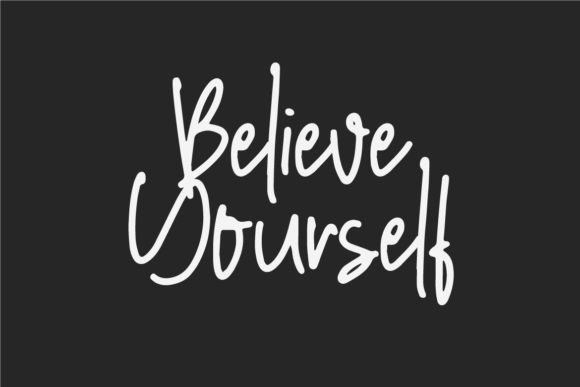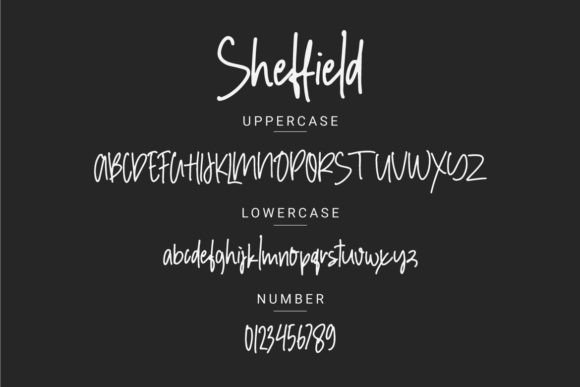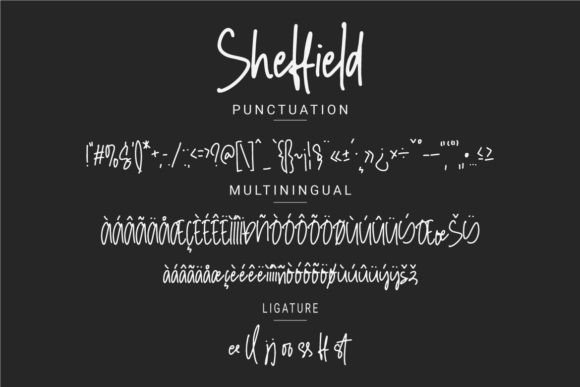
Introduction to Sheffield Font Font
Fonts play a crucial role in design, and the Sheffield Font font is a typeface that brings both character and versatility to any project. Whether you’re working on a branding project, a website, or a print design, the Sheffield Font font offers a unique style that can elevate your work.
Sheffield is a delicate, handwritten font with a touch of elegance.
Its flowing strokes and consistent baseline give it a refined and sophisticated appearance Sheffield is ideal for designs that aim to convey a sense of elegance, sophistication, and timeless beauty.
The Sheffield Font font is more than just a typeface – it’s a design tool that helps you communicate your message with style and clarity. Its unique character set and versatile design make it suitable for a wide range of applications, from elegant invitations to bold headlines.
With its carefully crafted letterforms and balanced proportions, the Sheffield Font font ensures readability and visual appeal across all mediums.
The Sheffield Font font stands out with its unique design, exceptional readability, and versatility across various design applications.